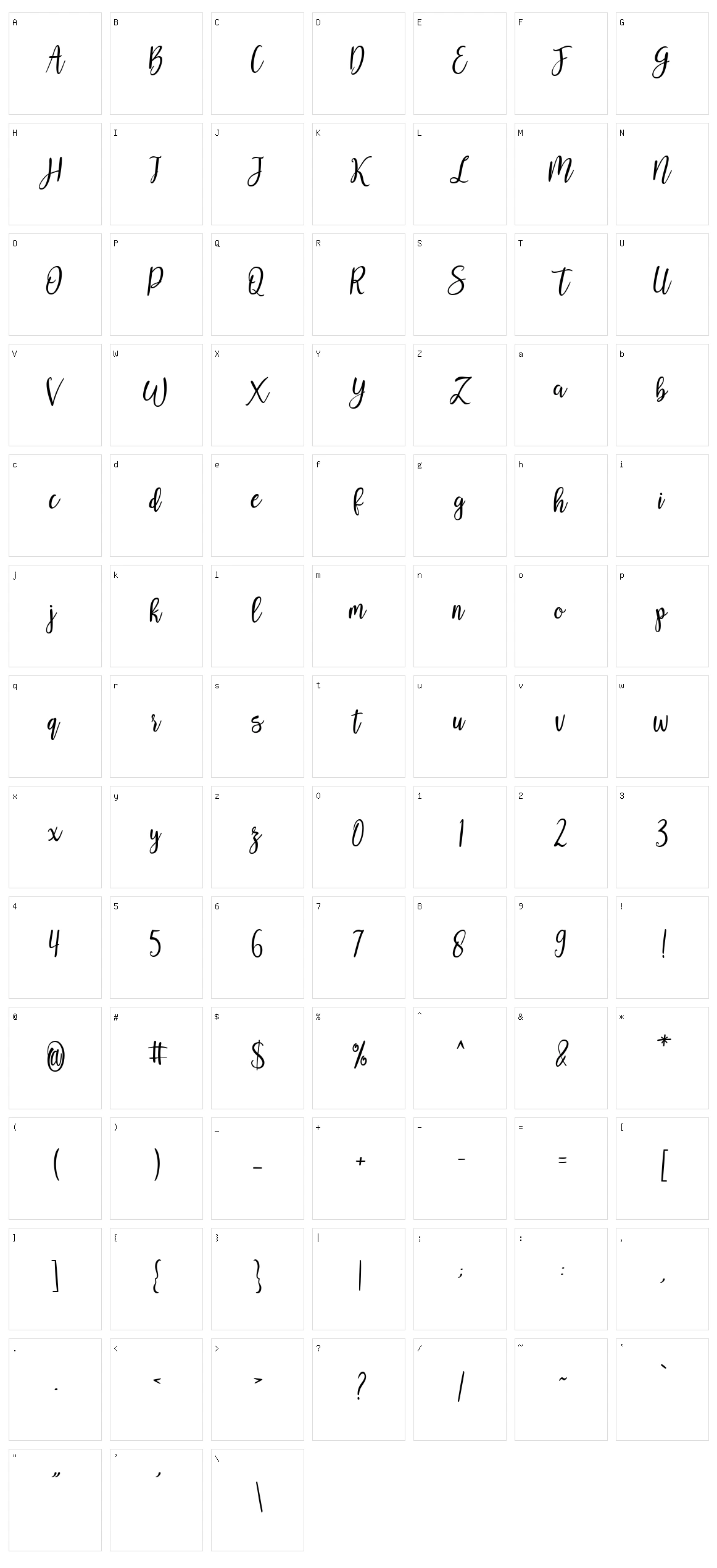
The free font Reshonta is carefully designed by Trf, showcasing a thoughtful balance of creativity and usability and falls under the Script font style. When you download the ZIP file, it contains only 84.95 KB of font files, making it lightweight and quick to download. Please review the license details below to understand permitted usage and distribution rights. If license information is not available, we recommend using this font for personal projects only or contacting the author directly for commercial usage permissions.